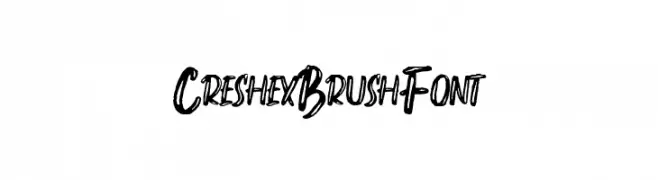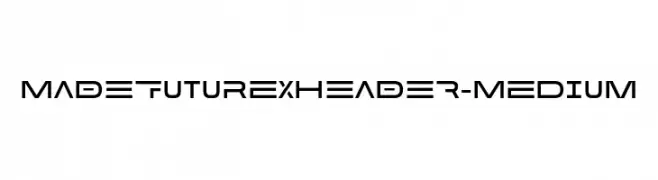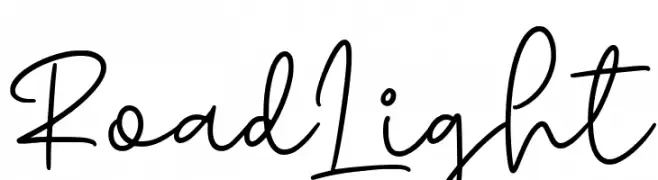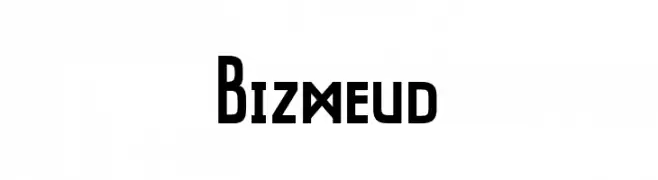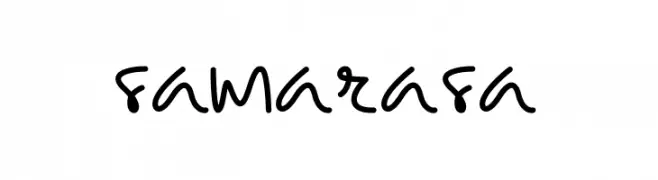
A bold, brush-style font with an energetic and artistic feel.
A futuristic, geometric font with a modern, tech-inspired design.
A decorative font emulating vintage library and archival seals.
A sleek, modern font with geometric structure and balanced spacing.
A lively handwritten font with fluid, cursive letterforms and a playful elegance.
A playful, handwritten font with tall, narrow letterforms and a casual style.
A bold, modern font with a geometric and condensed style.
A modern, monospaced font with a clean, condensed design ideal for technical applications.
A bold, rounded typeface with a playful and friendly style.
A playful handwritten font with fluid, organic letterforms and consistent stroke width.